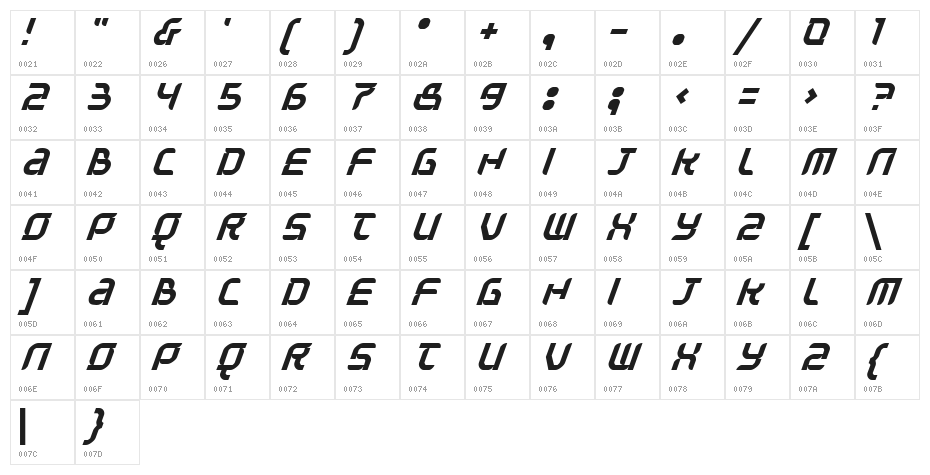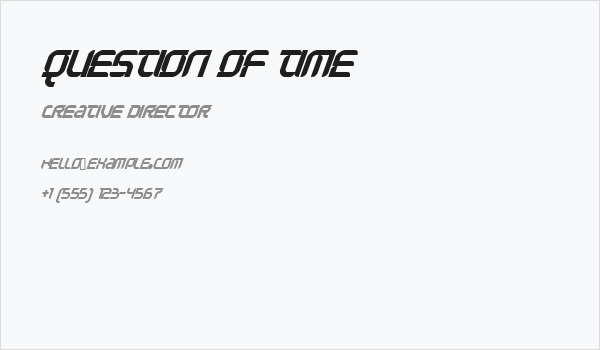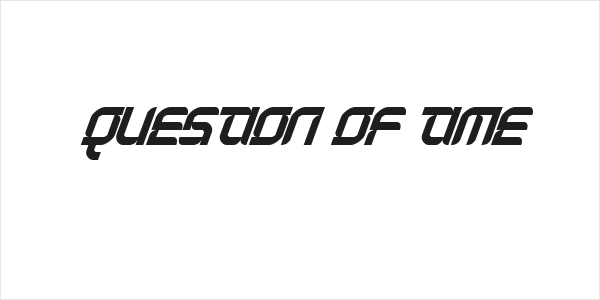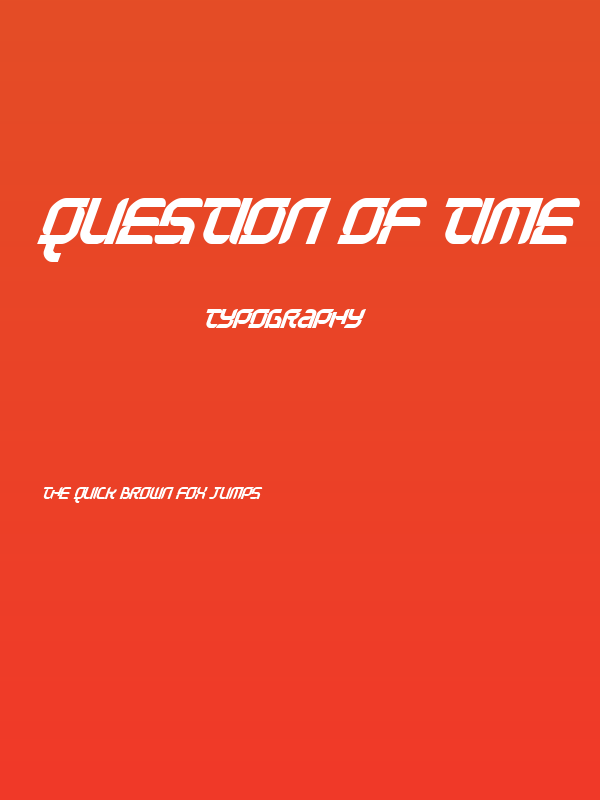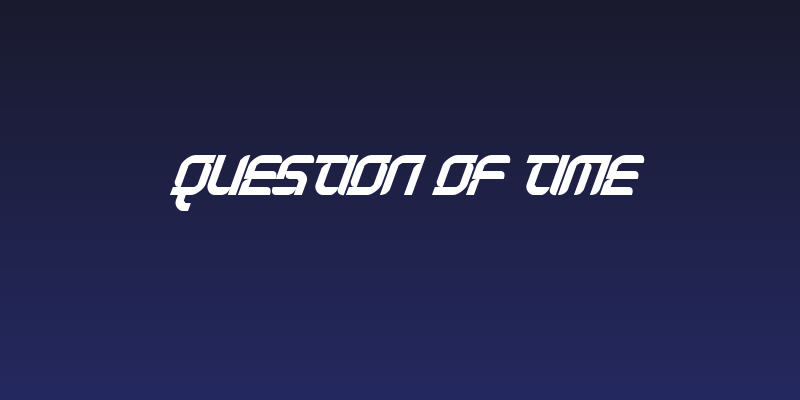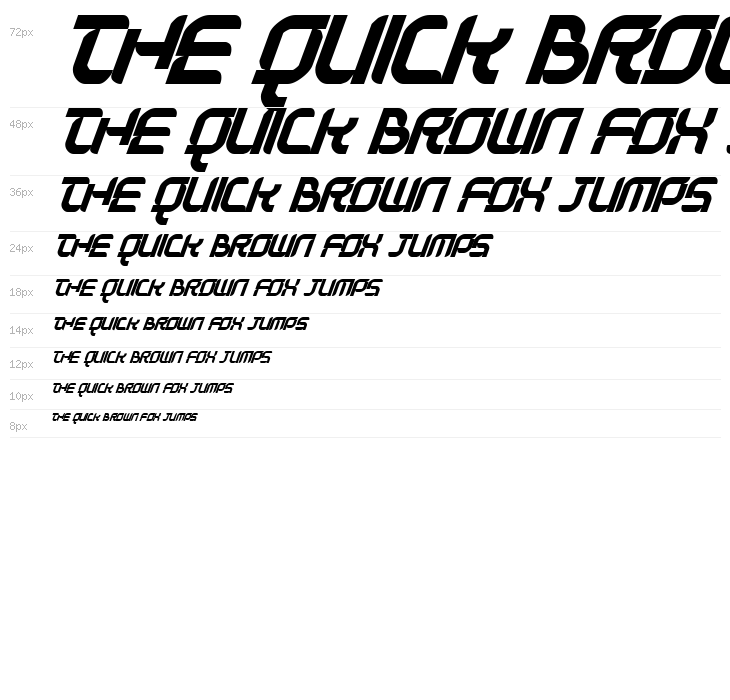
Question of time Font
Question of time Description
This font features a bold, futuristic design with a strong emphasis on angular and geometric shapes. The characters are slightly italicized, conveying a sense of motion and speed. The strokes are thick and consistent, providing a high contrast that enhances readability. The overall style is modern and dynamic, making it suitable for projects that require a cutting-edge and energetic look. The spacing between characters is tight, which contributes to its compact and cohesive appearance.
| Use Case | Logos, Headlines |
| Proposed Projects | Ideal for technology branding, sports team logos, and sci-fi movie posters. |